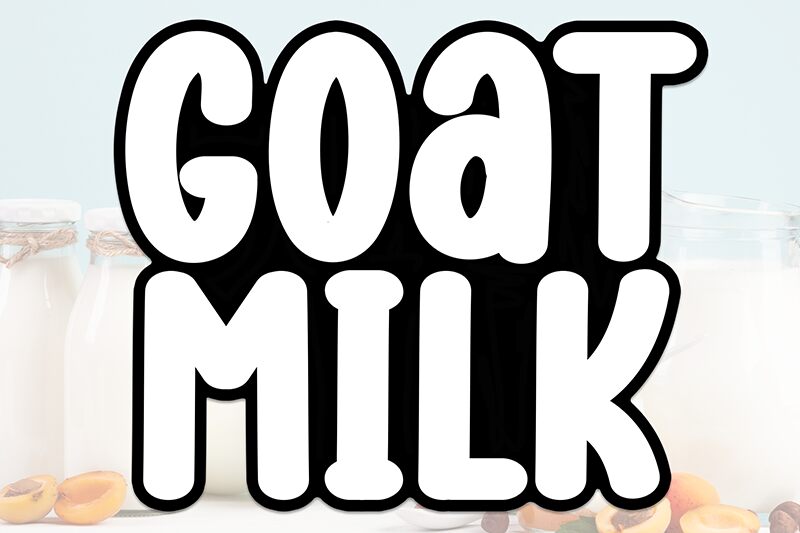
Goat Milk
Goat Milk font is a bold, retro-style brush design from Scratchones. This chubby, rounded font exudes a friendly and approachable vibe, making it casual yet impactful in its appearance. The free typeface offers a light-hearted and engaging look that can effortlessly capture attention in any project.
Goat Milk's use cases include brand identity projects, personal projects, stickers, T-shirts, hats, postcards and invitations' designing. Other applications are websites/online shops that sell food items or recipes and children's songs' album covers among various other artwork designs!